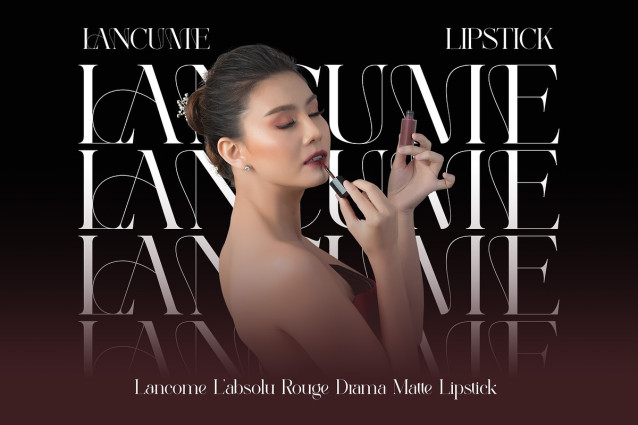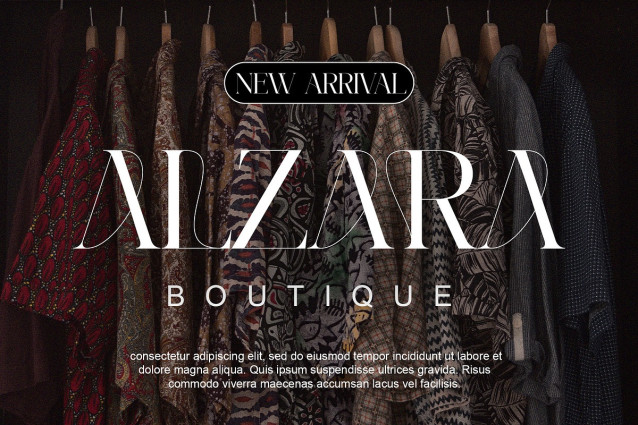
Magillo Font
Magillo Font – Ligature Serif Typeface Magillo is a contemporary serif that blends classic elegance with a modern twist through distinctive ligatures, delivering a seamless, artistic, and refined typographic experience. Each curve has been meticulously designed to highlight its unique character, identity, and visual aesthetics.